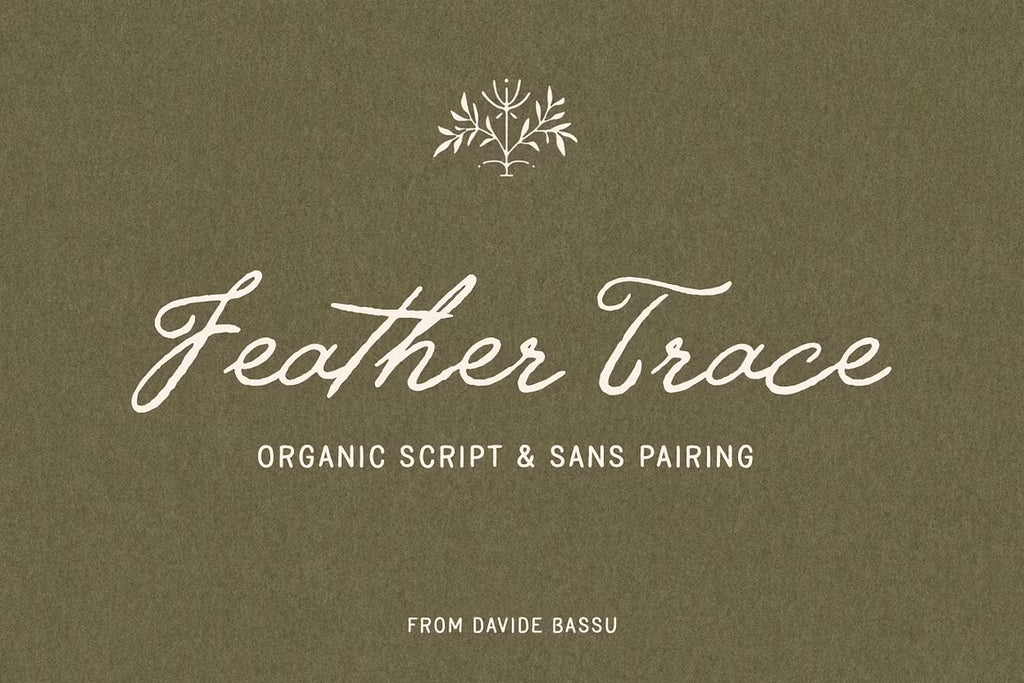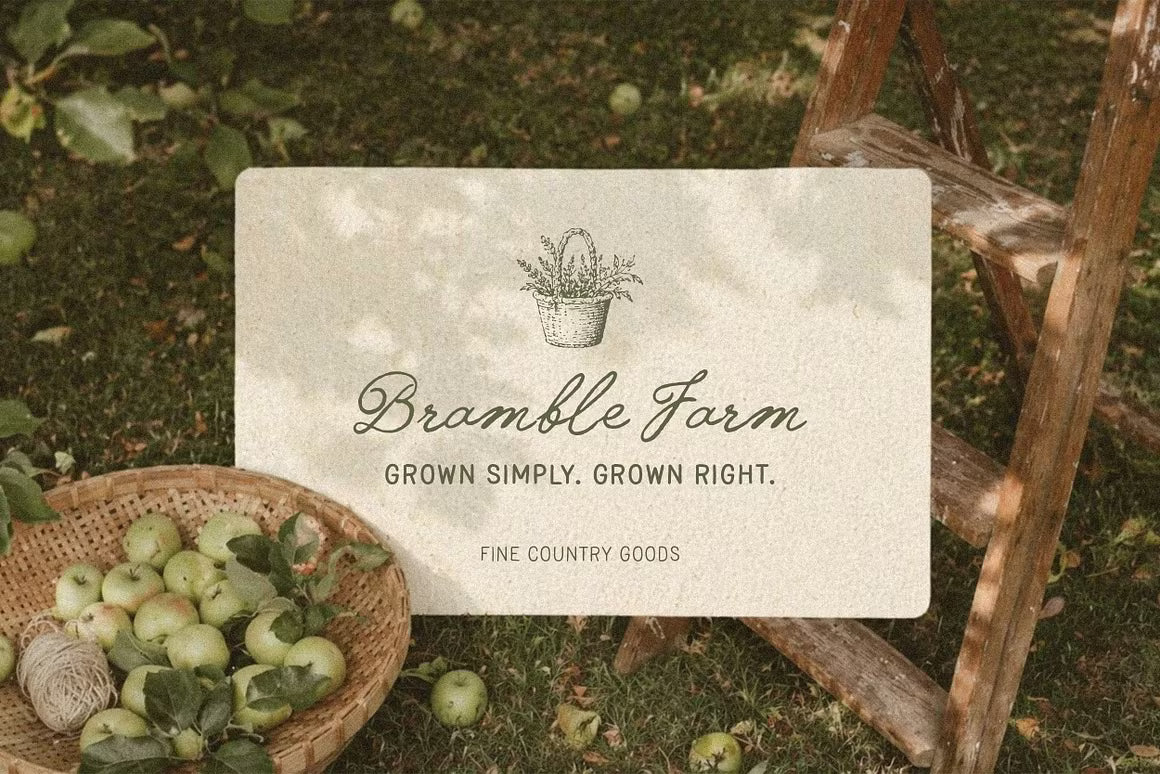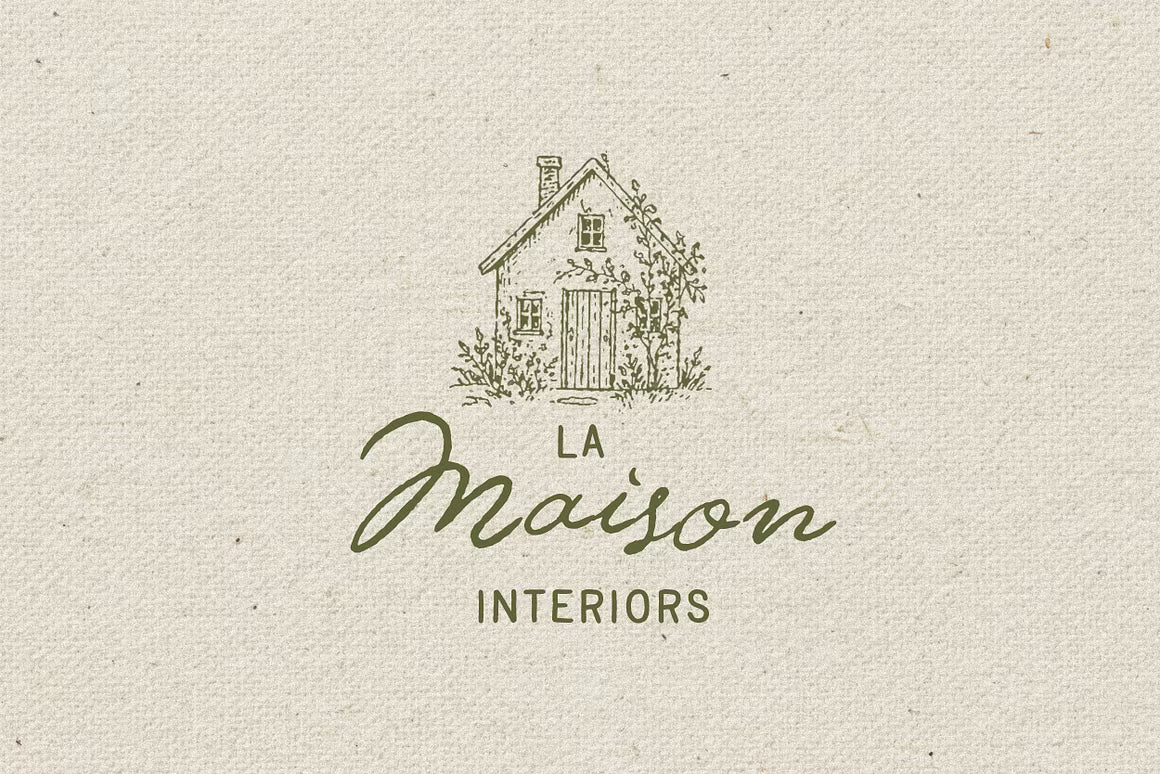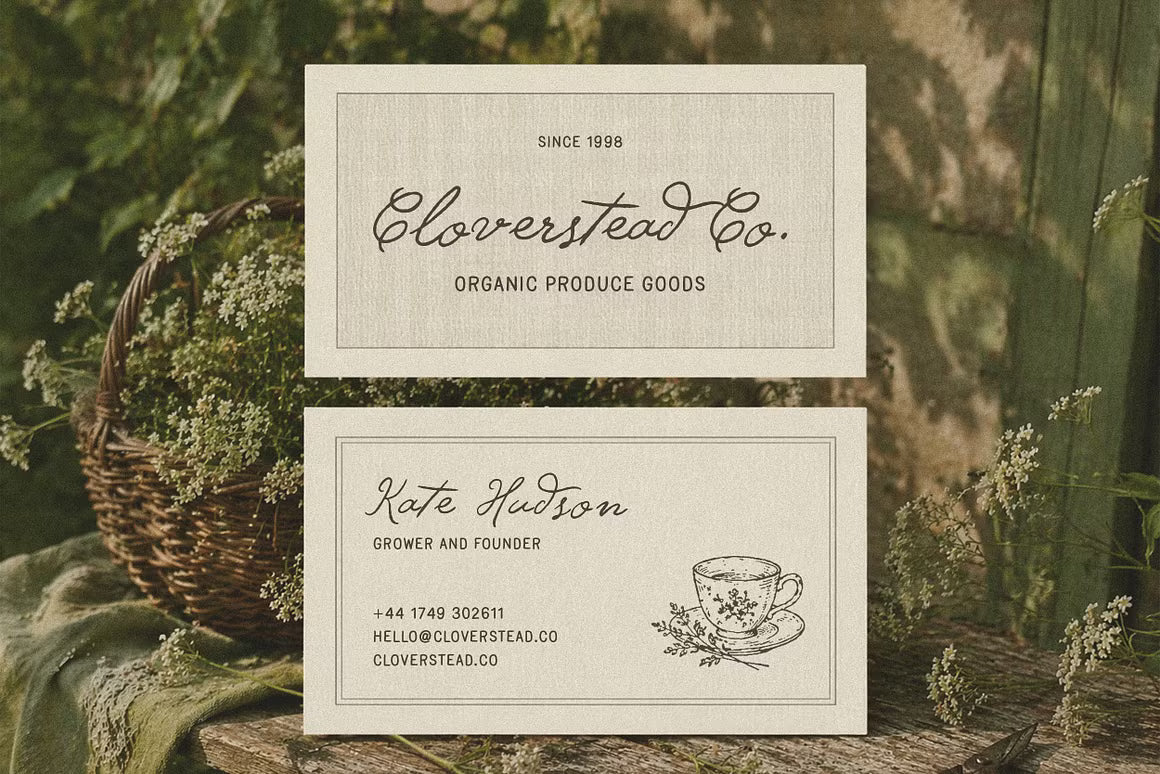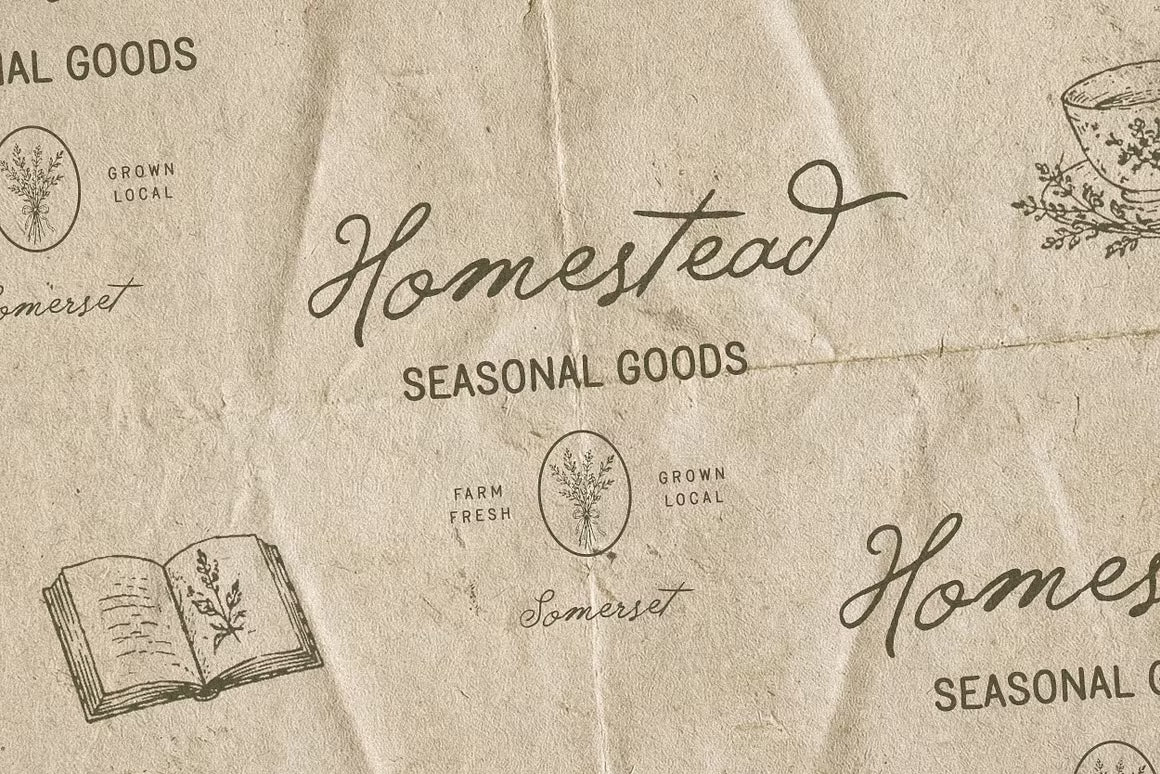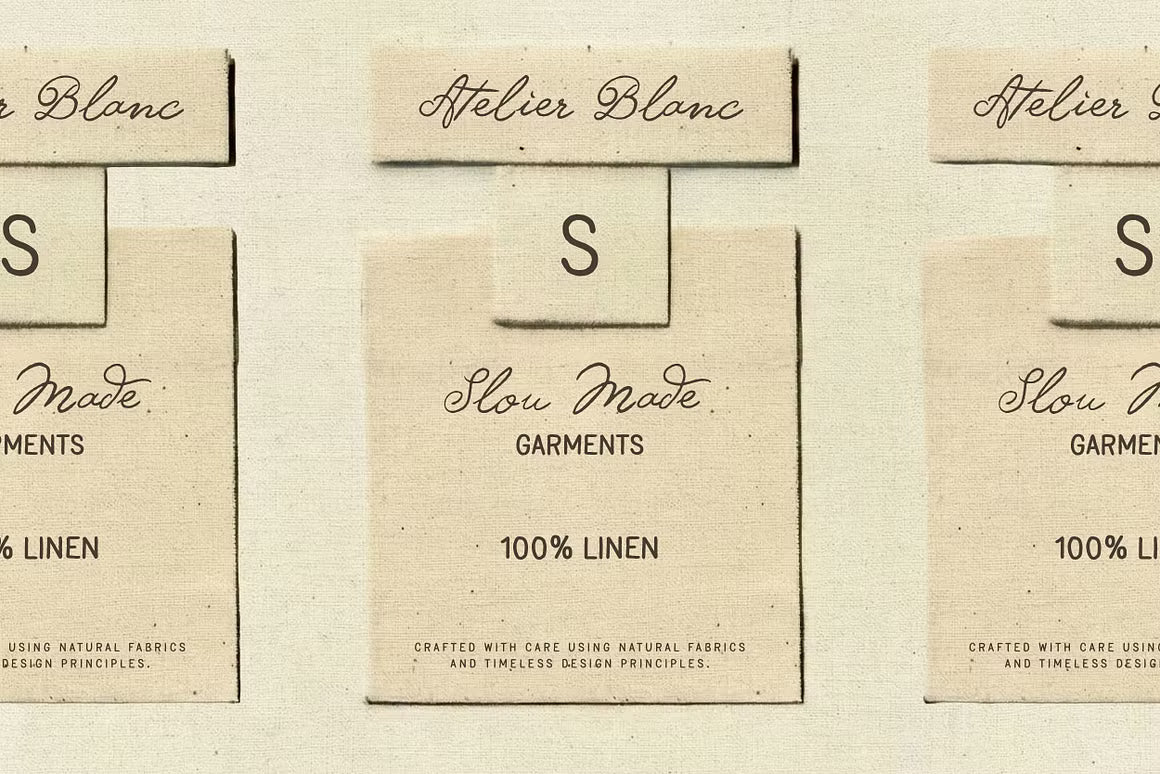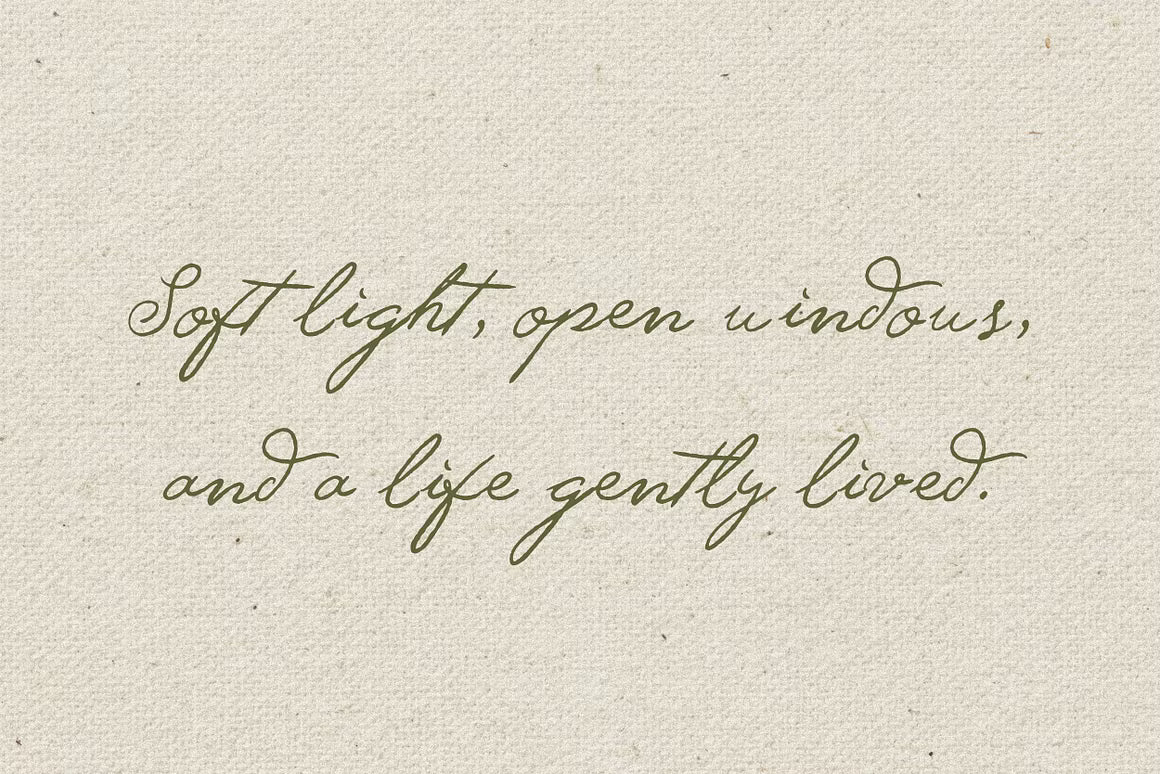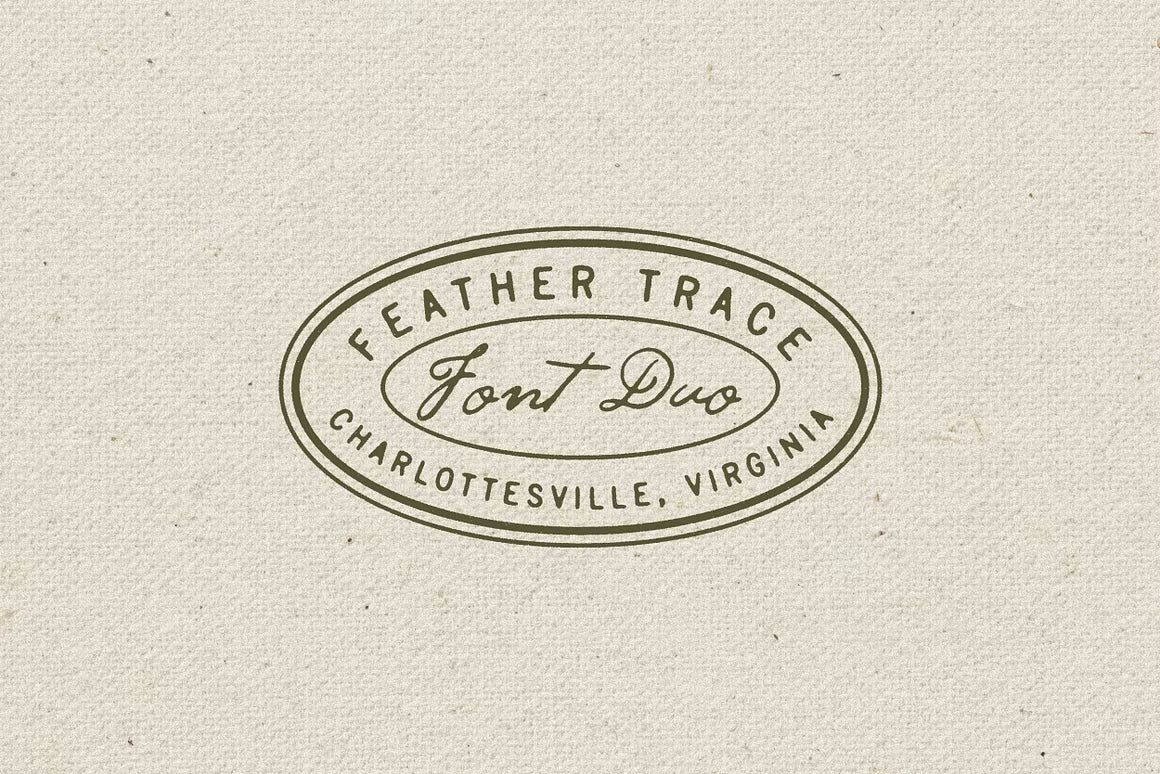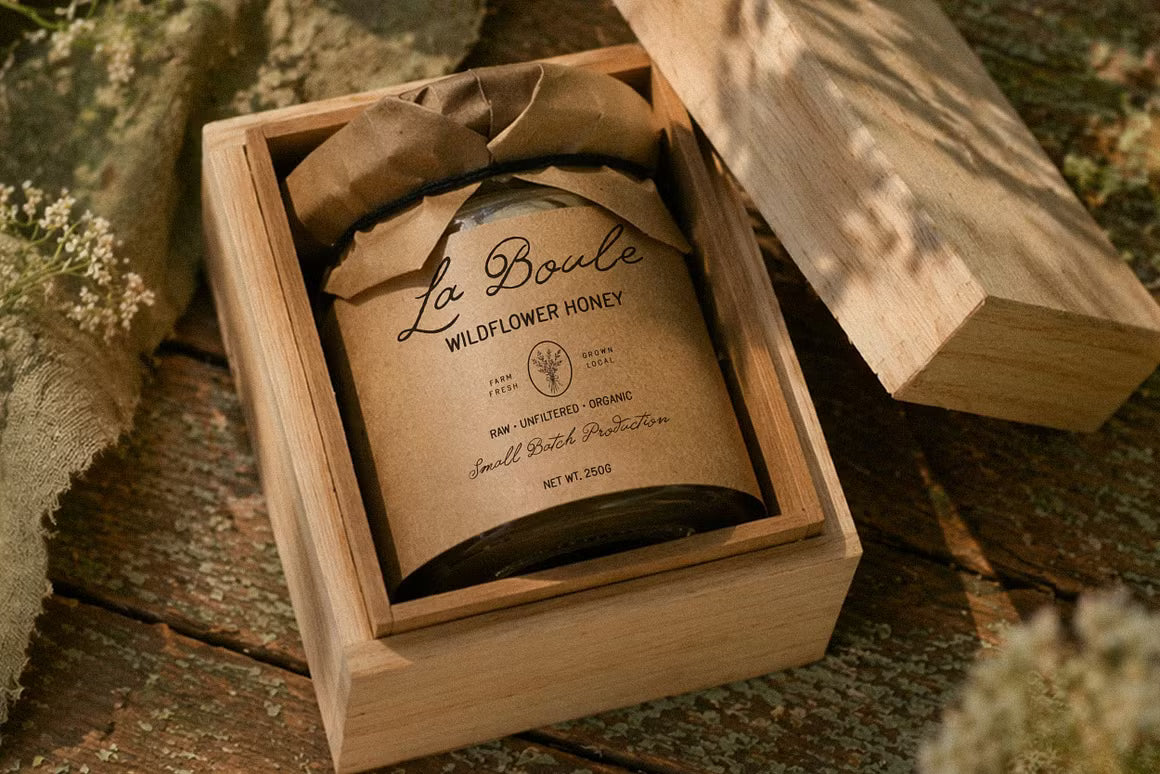
Feather Trace - Organic Font Duo
Feather Trace Script
Feathertrace Bold
Feathertrace Regular
Feather Trace – Organic Font Duo feels like a gentle breeze across paper — soft, natural, and full of life. This pairing combines a delicate, hand-drawn script with a clean, organic sans that together create a warm and approachable aesthetic.
The script brings fluidity and personality with its light, feathery strokes, while the sans provides grounding and readability. Perfect for wellness brands, organic products, lifestyle projects, editorial work, and any design that wants to feel earthy, gentle, and authentically human.
A lovely duo for projects that celebrate nature, softness, and thoughtful simplicity.